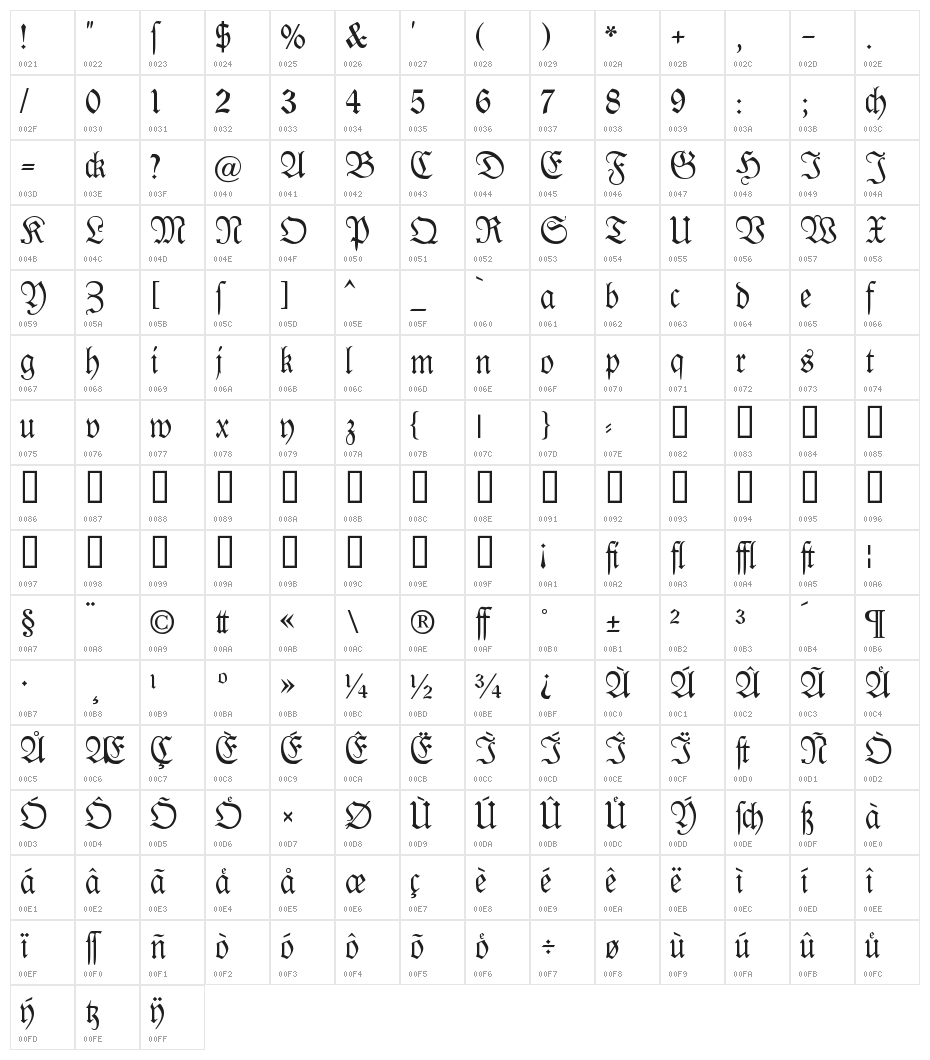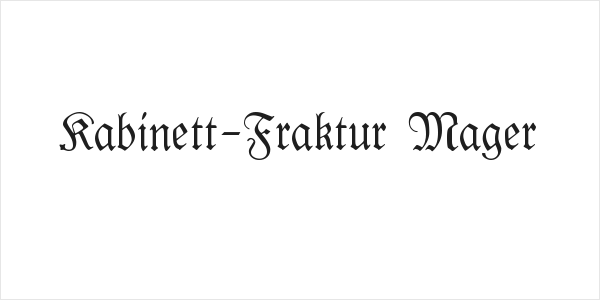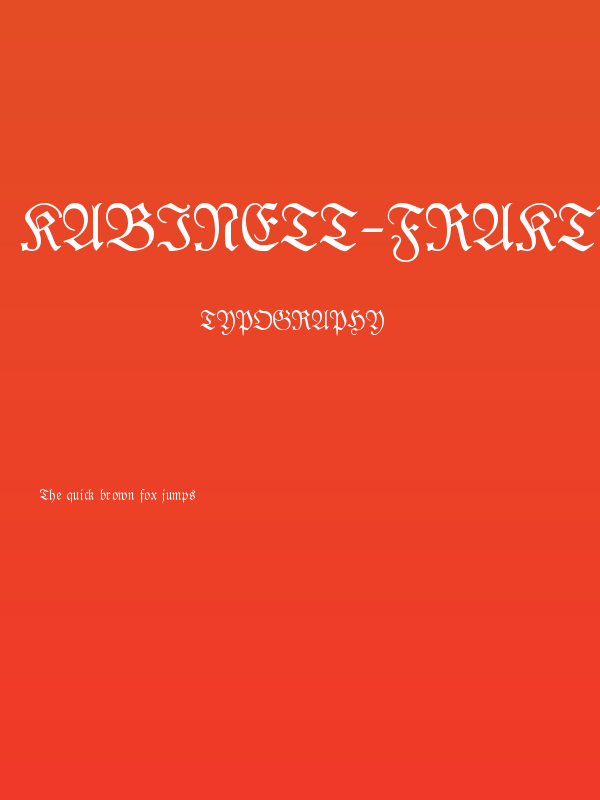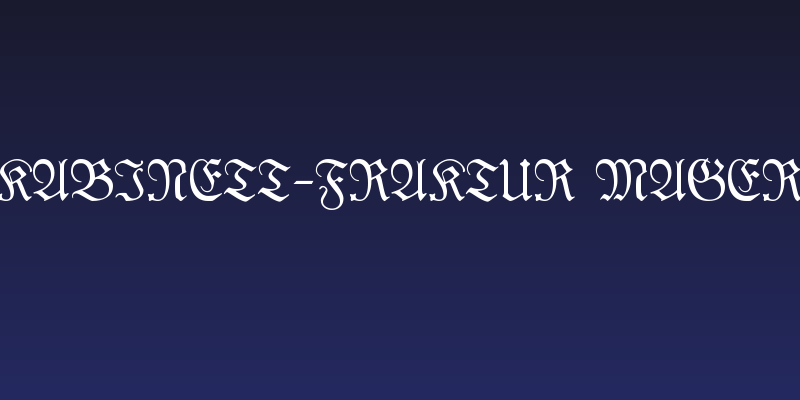
Kabinett-Fraktur Mager Font
Kabinett-Fraktur Mager Description
This font exhibits a traditional Blackletter style, characterized by its intricate and ornate letterforms. The uppercase letters are highly decorative, featuring sharp angles and elaborate curves that give a sense of historical elegance. The lowercase letters maintain a consistent style, with a slightly more restrained design that enhances readability while preserving the overall aesthetic. The numerals are bold and distinct, matching the elaborate style of the alphabet. Special characters are equally ornate, integrating seamlessly with the rest of the font. This typeface is reminiscent of medieval manuscripts and is perfect for projects that require a touch of historical or gothic flair.
| Proposed Projects | Ideal for historical documents, gothic-themed designs, book covers, and decorative certificates. |